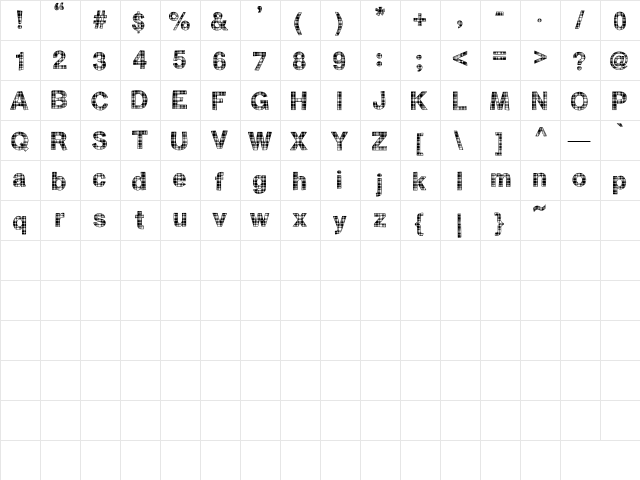
Scartan Floaben Regular Font Preview
Scartan Floaben Regular
Design Context for Scartan Floaben Typeface
Scartan Floaben takes a measured approach to typography — its balanced proportions and neutral character make it a reliable workhorse for both digital and print work.